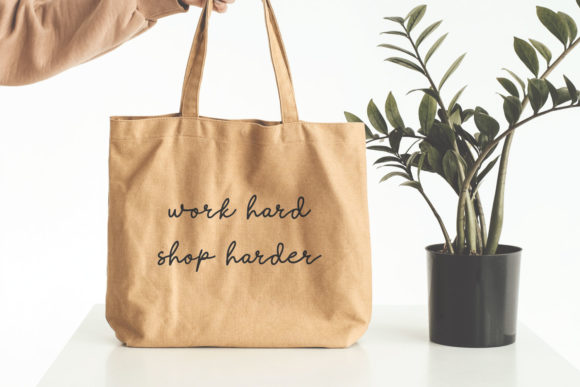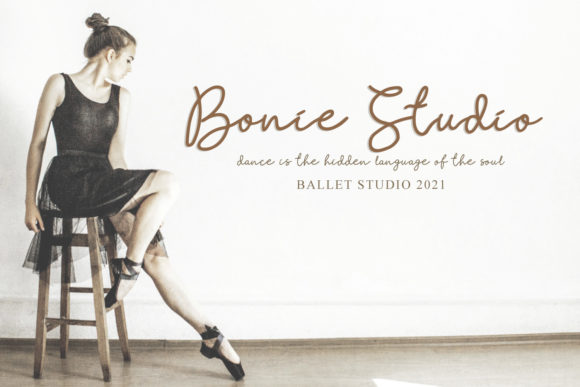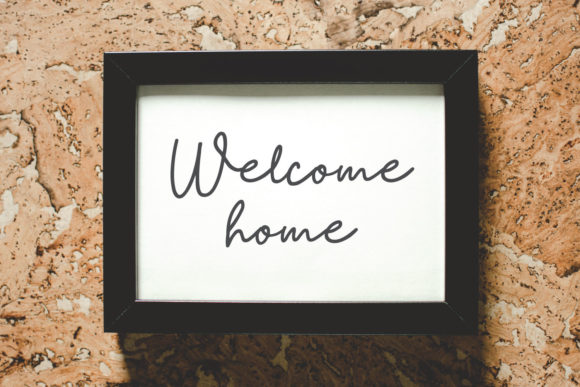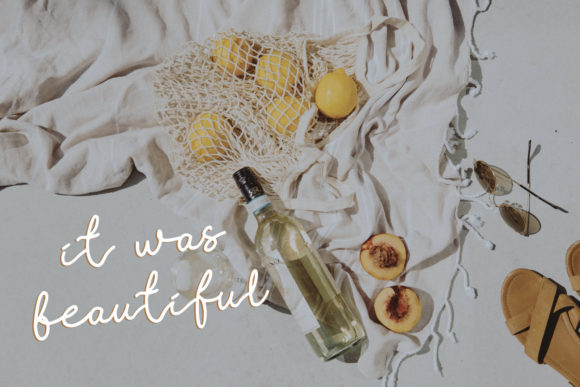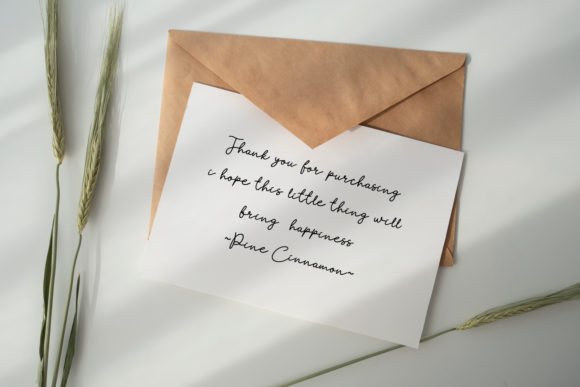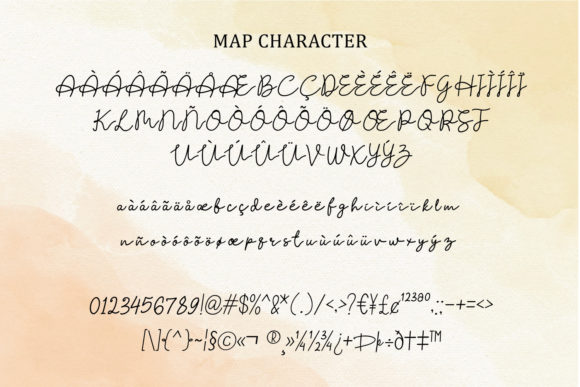
Introduction to Pine Cinnamon Font
Pine Cinnamon is an original & organic hand-drawn script font.
Pine Cinnamon is perfect for handwritten quotes, signature styled logos, stylish branding projects, handcrafted stationery & product designs .
Key Features of Pine Cinnamon Font